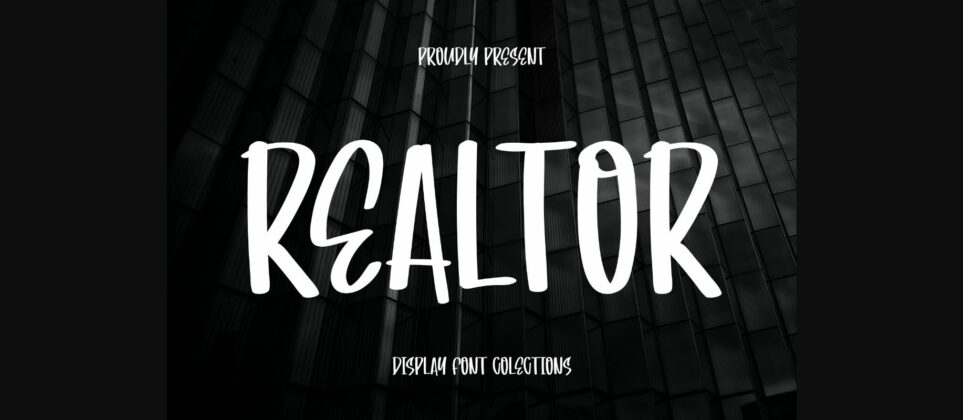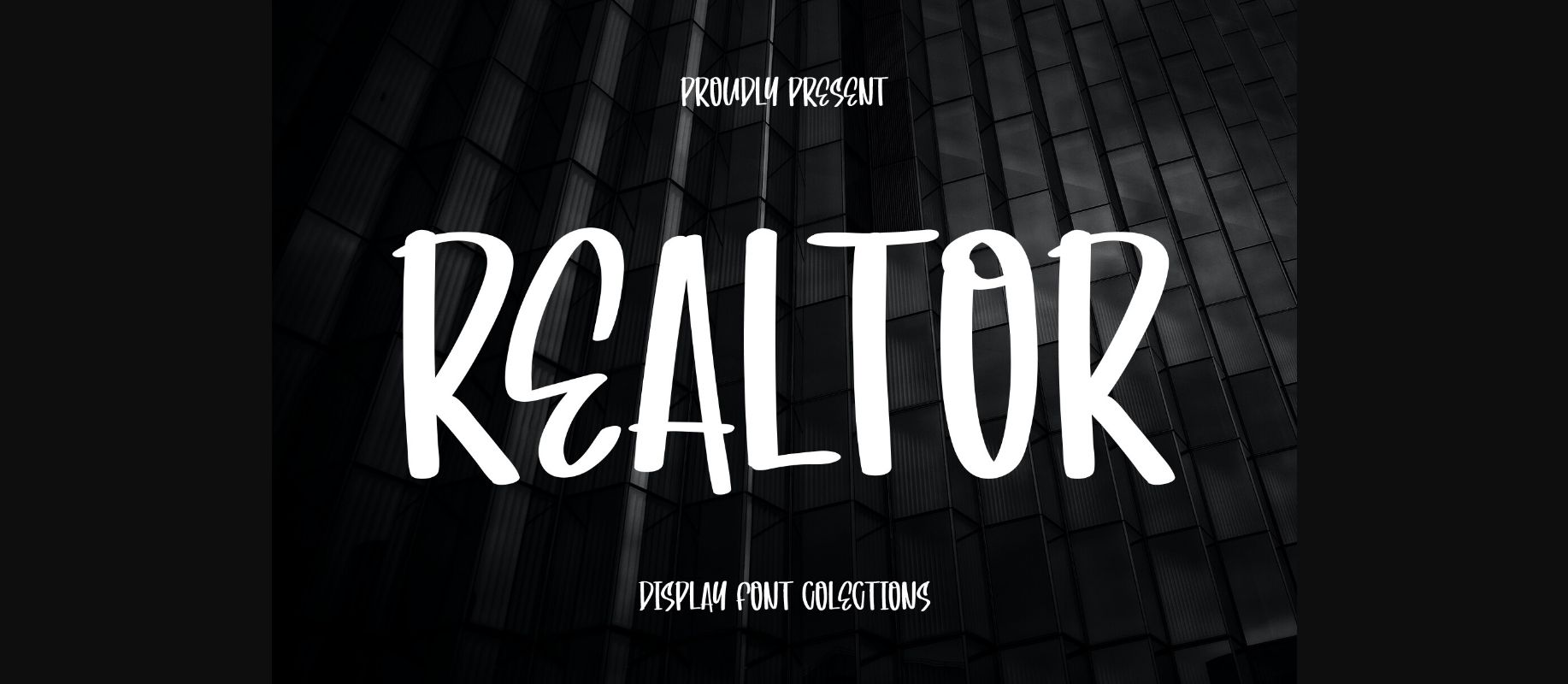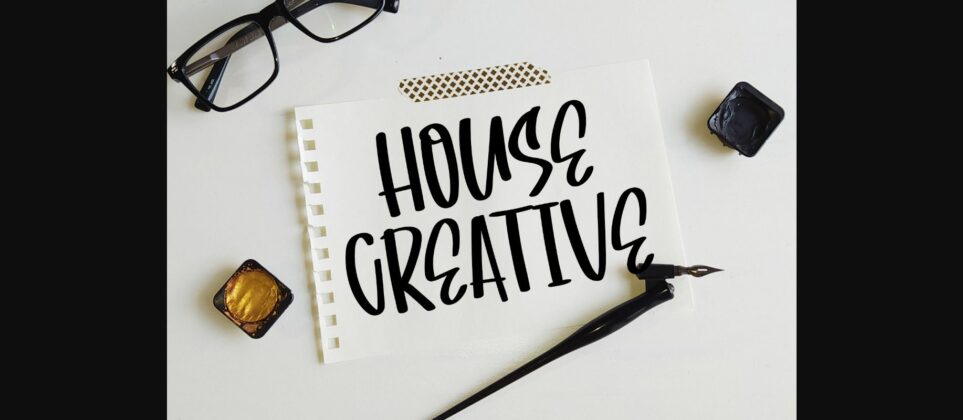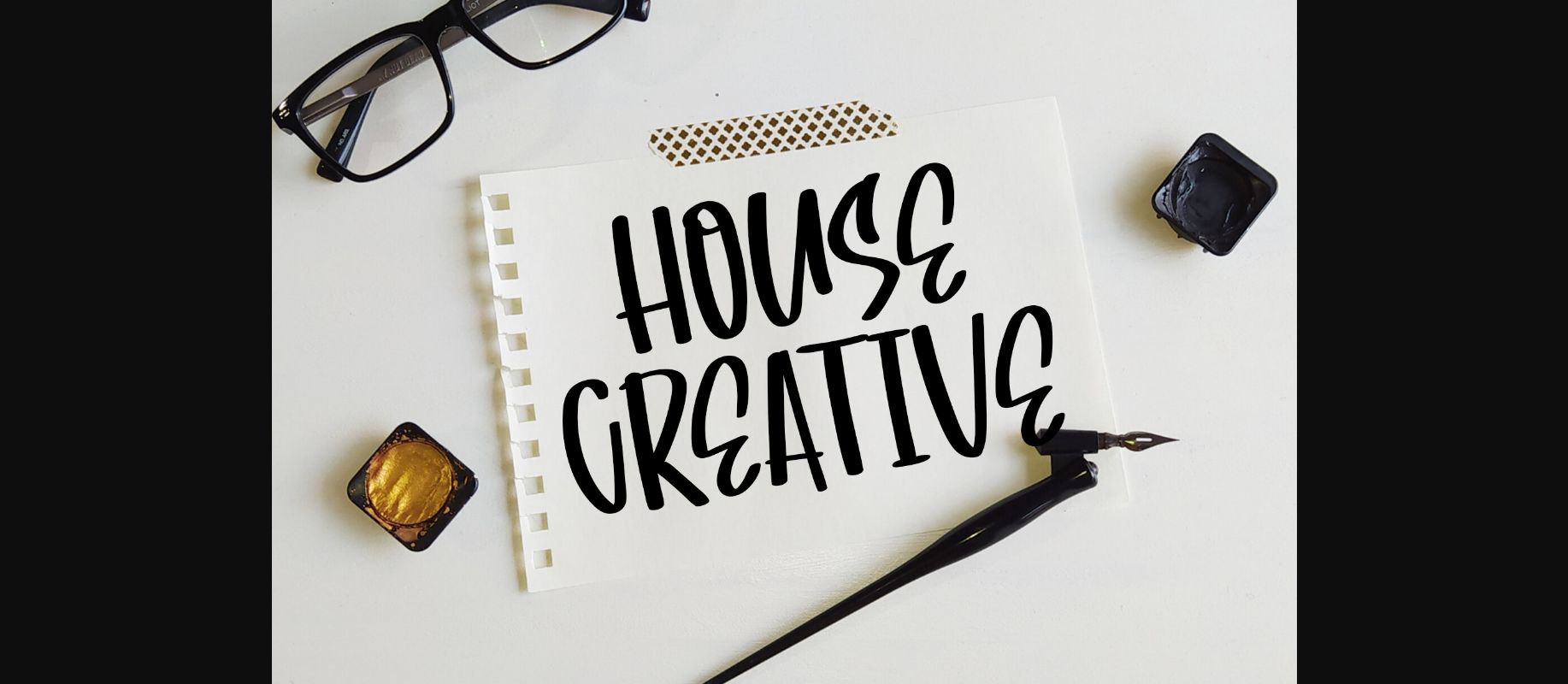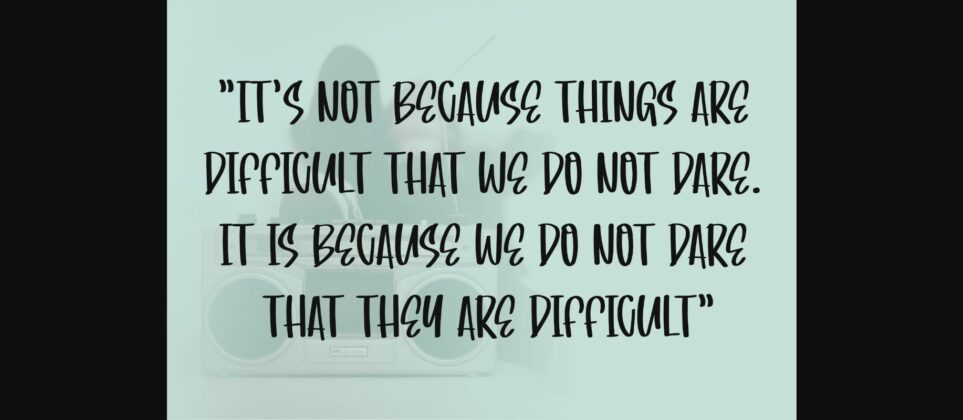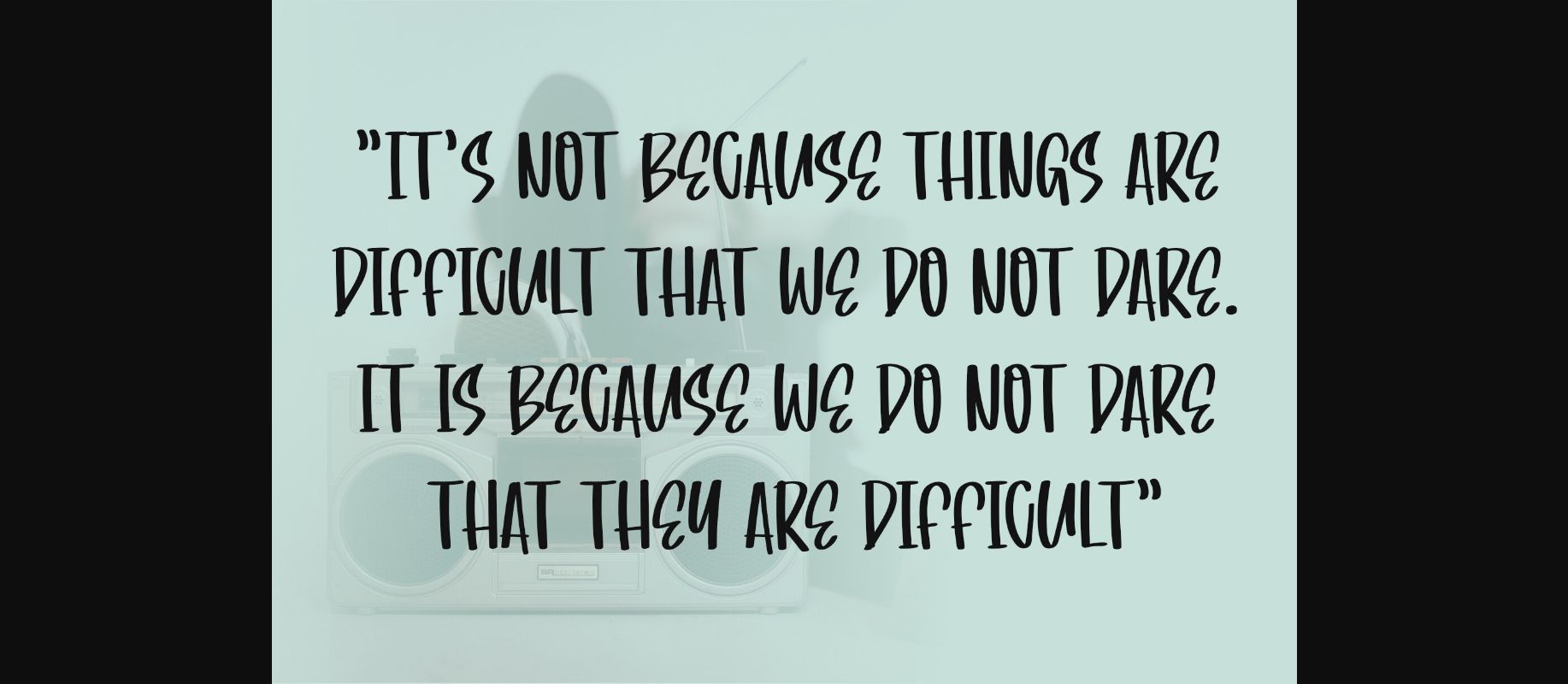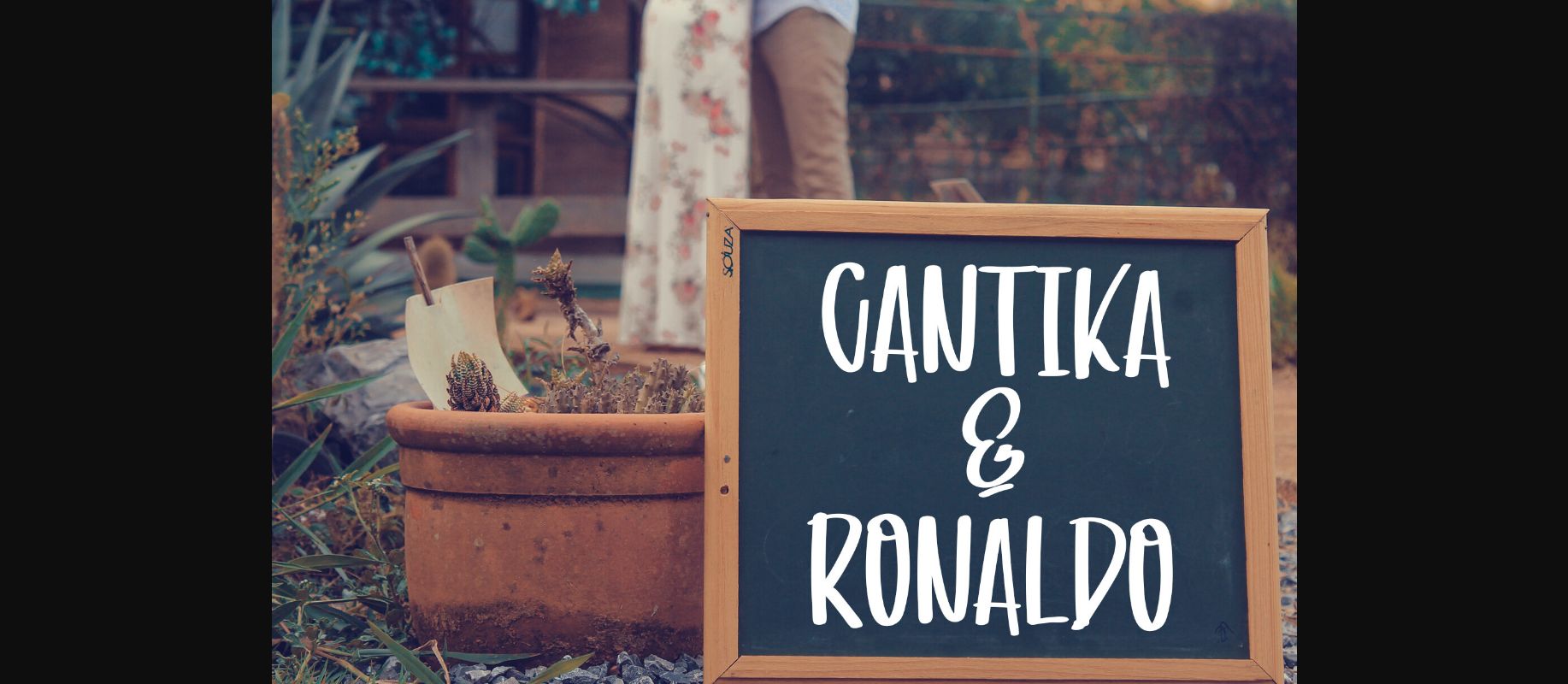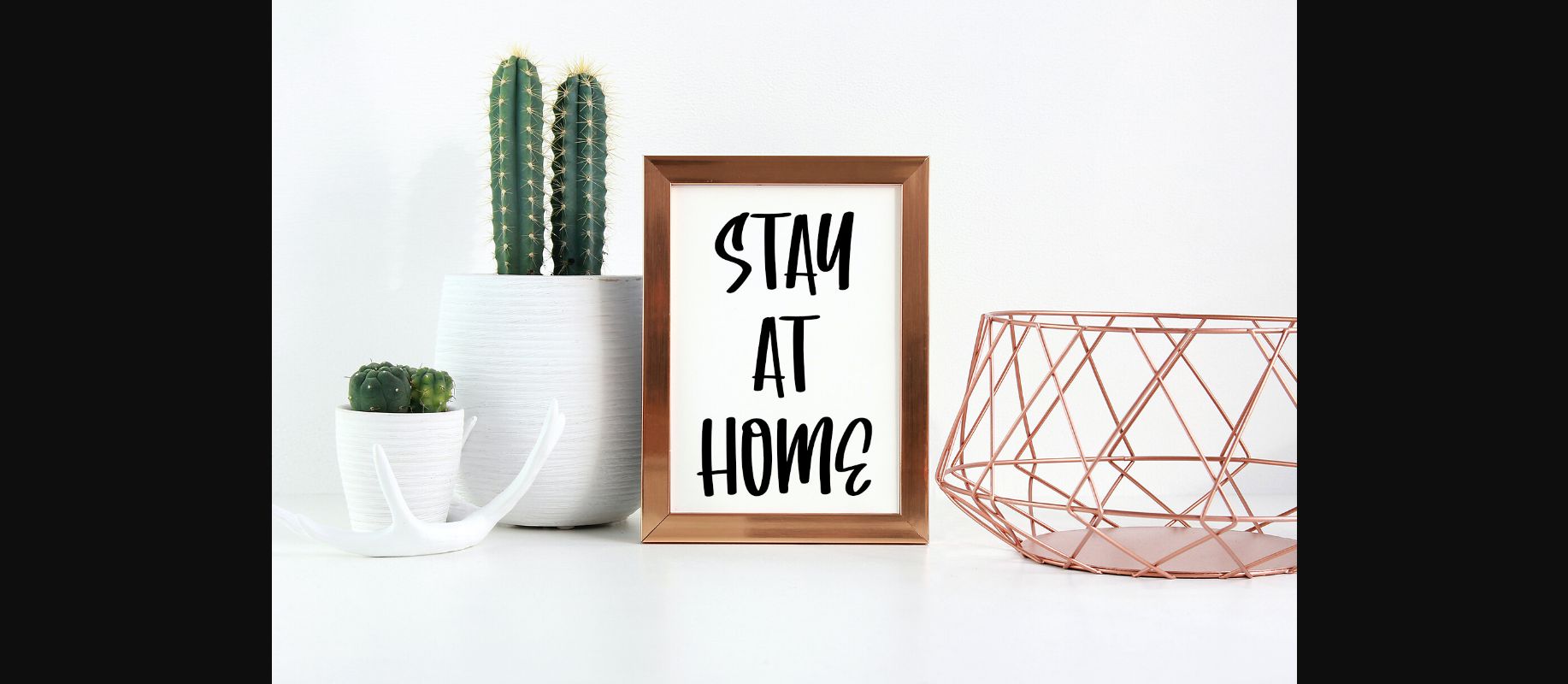
Realtor Font
About Realtor Font
Realtor is a fun and cute font perfect for crafters. Add it confidently to your creative ideas and notice how it makes them come alive!